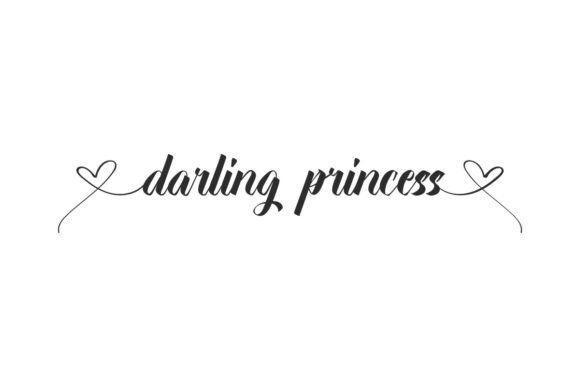
Introducing Darling Princess Font, a calligraphy masterpiece that will enchant your designs with its exquisite charm. This modern script font exudes elegance and grace, meticulously crafted to capture the essence of timeless beauty. Whether you seek to elevate your brand logo, add a romantic touch to your brochure, create distinctive business cards, or design captivating covers, Darling Princess will effortlessly enhance your creations.
Journey through a realm of creativity with Darling Princess, where every letter dances with delicate finesse. Its clean lines and effortless readability ensure that your message shines through with clarity and poise. Envision your invitation cards adorned with the enchanting strokes of Darling Princess, adding a touch of sophistication to your special moments.
With Darling Princess by your side, unleash your imagination and transform ordinary labels into works of art. Elevate your product packaging with a touch of elegance, making each item a keepsake to be treasured. Let your quotes come alive with the artistry of Darling Princess, captivating your audience with words that resonate. Design stickers that exude personality and charm, adding a playful touch to your creations.
Craft titles that command attention and leave a lasting impression, using Darling Princess to make your words stand out. Create watermarks that subtly enhance your designs, adding a layer of intrigue and exclusivity. Take your website to new heights with Darling Princess, captivating visitors with a visual experience that exudes professionalism and creativity.
Darling Princess is more than just a font; it's an artistic journey waiting to be explored. Let your designs blossom with the elegance of Darling Princess, transforming your creations into masterpieces that captivate hearts and minds. Embrace the beauty of calligraphy and elevate your designs to new heights of sophistication.